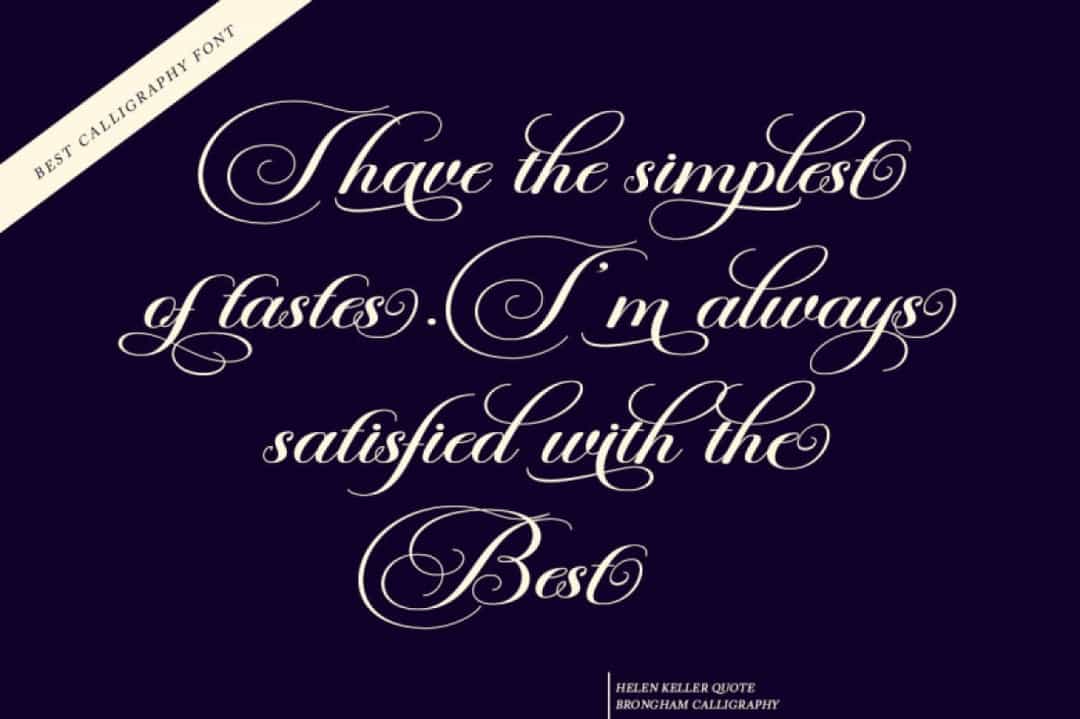
Brongham is a calligraphy font that includes very nice alternates, a kind of vintage copperplate script font with a touch of modernity, detailed to create a stylish elegance. Brongham Script is beautiful due to the following reasons; it is smooth, clean, feminine, sensual, glamorous, simple, and very easy to read due to many fancy letter connections.